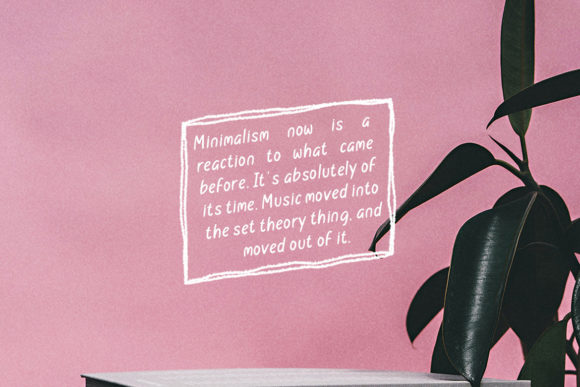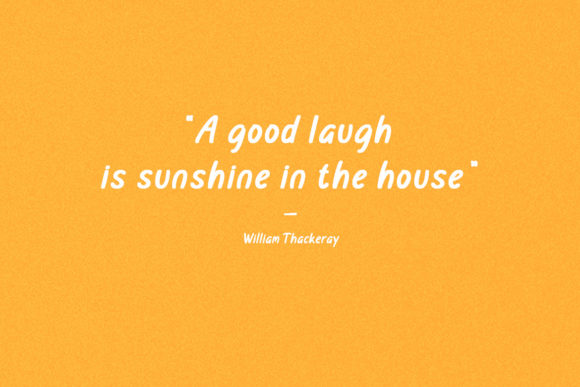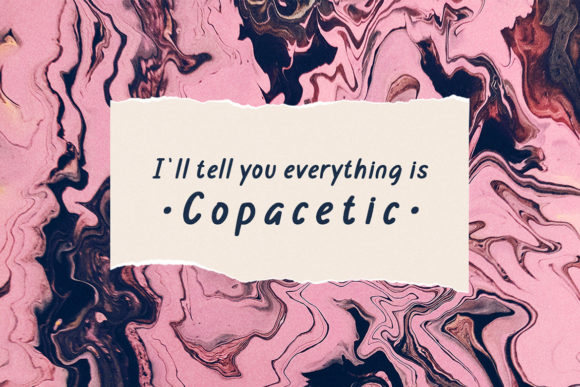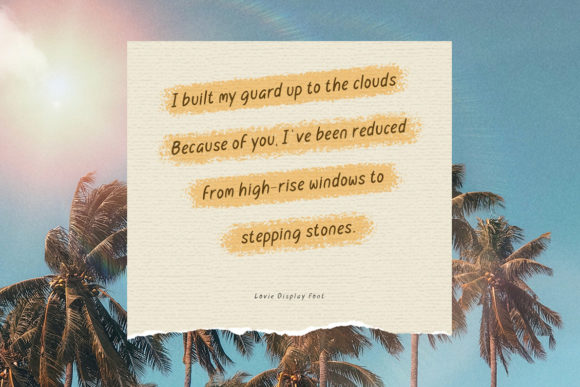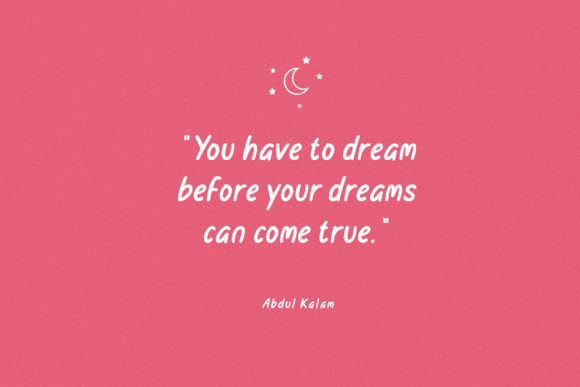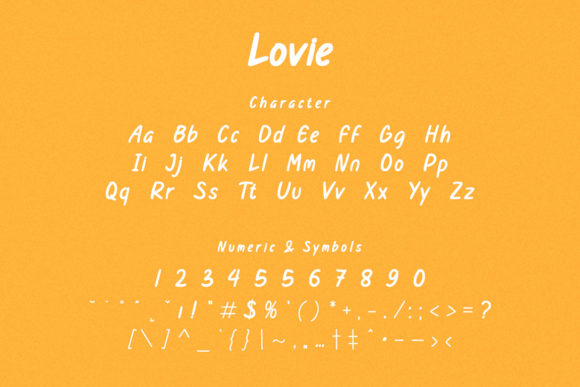
Introduction to Lovie Font
Lovie is a clean and modern looking handwritten font.
Add this minimalist and techno styled font to your web designs, logos or pretty much anything that requires a smart, cool touch .
Key Features of Lovie Font
Why Choose Lovie Font?